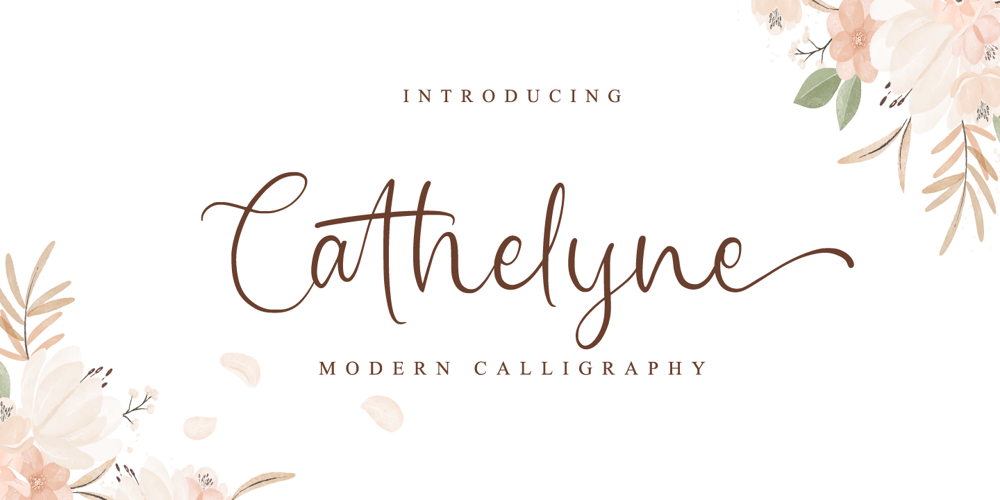
Cathelyne
Cathelyne font
Cathelyne Font Family was designed by Novia Himatunnisa and published by Nissa Nana. Cathelyne contains 1 styles and family package options. Cathelyne is a beautiful and refined script font. It has a classy, elegant and modern look that can be used for logos, branding, invitations, stationery, wedding designs, social media posts, and much more!